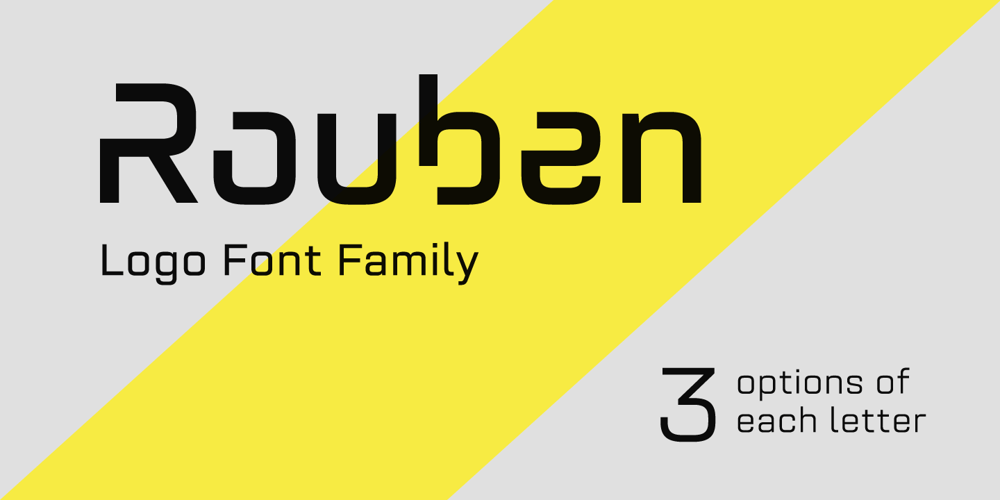
Rouben Font Family was designed by Roman Melikhov and published by Roman Melikhov. Rouben contains 11 styles and family package options. Rouben is a sans serif font family for creating minimalistic logos, wordmarks, titles, taglines.Use stylistic alternates to emphasize separate letters in your text.Features:- 10 weights + variable font- Multilanguage + Cyrillic- 2 stylistic alternates for each letterYou can use alternates in most major image editors, just find menu item Glyphs (Alternates) there.For any questions about the font please contact: arbuzzu@gmail.com